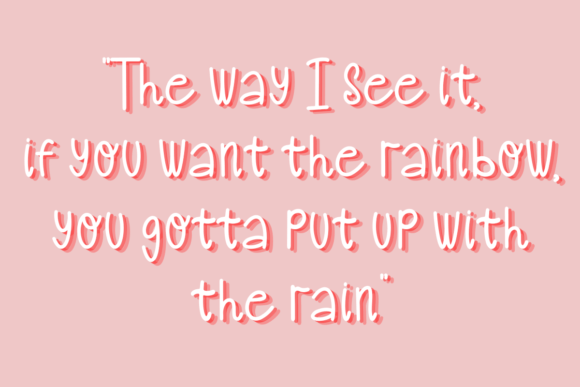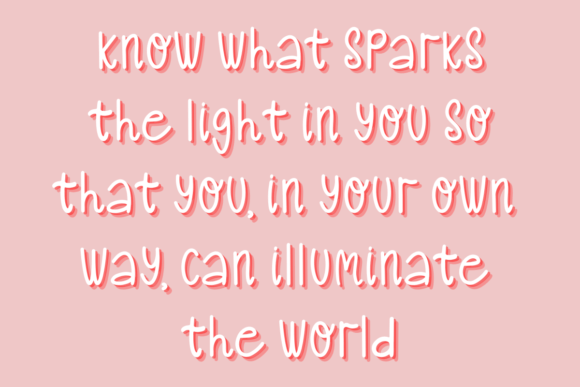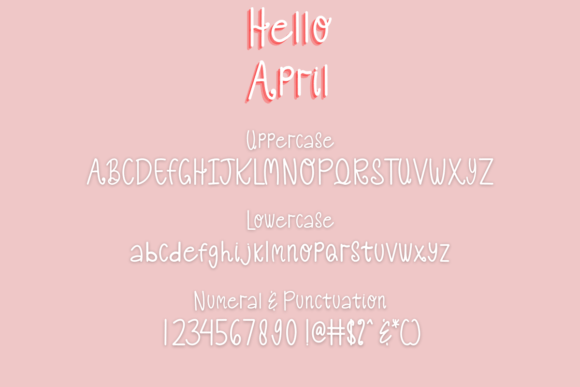
Introduction to Hello April Font
Hello April is a handwritten font suitable for logos, branding, titles, social media posts, advertisements, product packaging, product designs, labels, special events, web designs, etc.
Key Features of Hello April Font